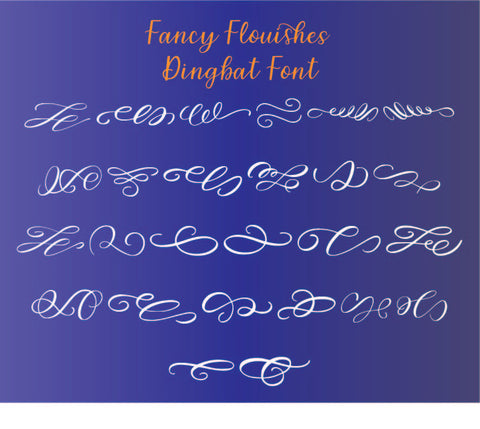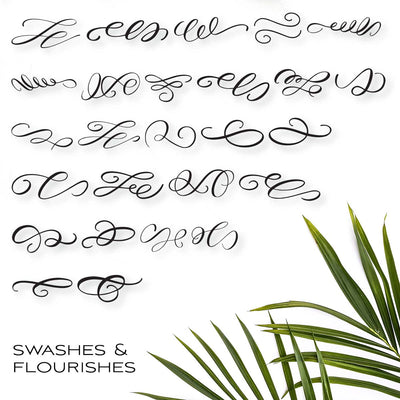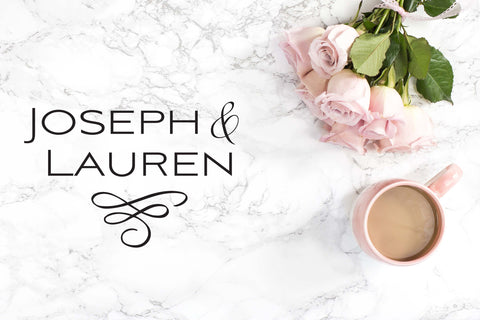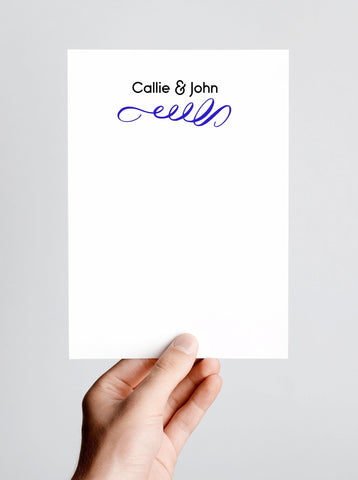
Fancy Calligraphy Flourishes Dingbat Font TTF & OTF Wedding Invitation Bridal Shower Wedding Font Ornament
Looking for that perfect calligraphic swash or flourish? Look no further! You'll receive 26 unique and elegant calligraphy swashes, perfect for invitations, signs, monogram designs, or when you just want to add that little perfect touch to something special.